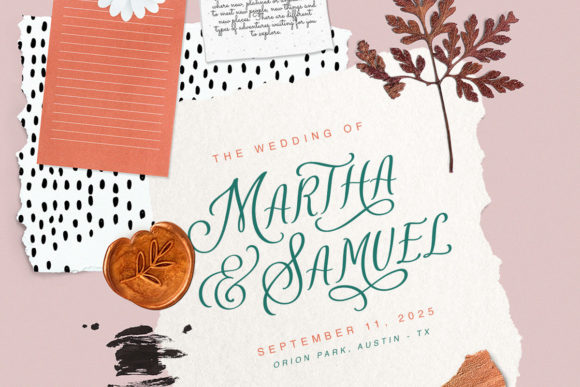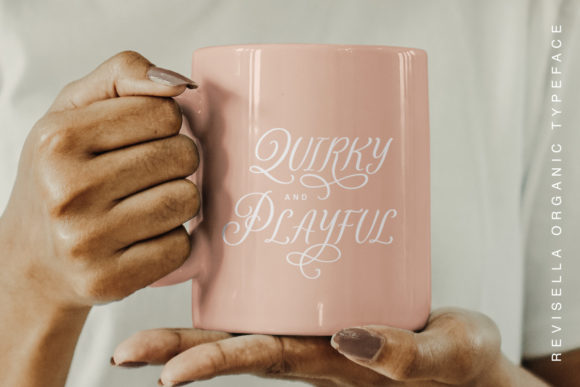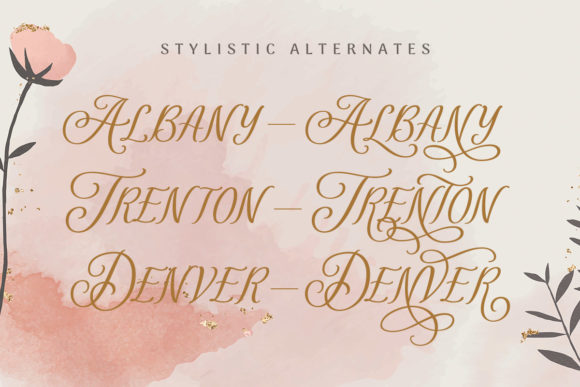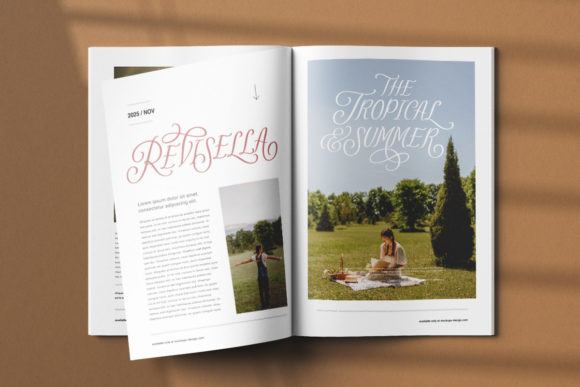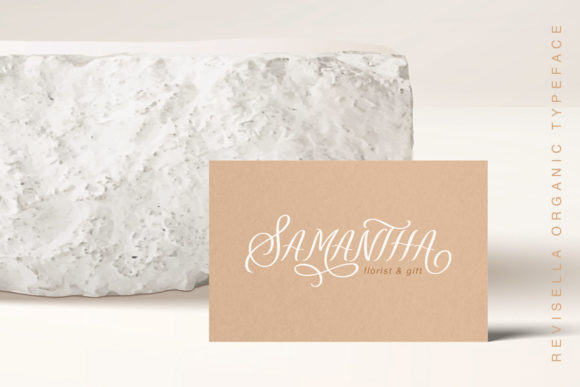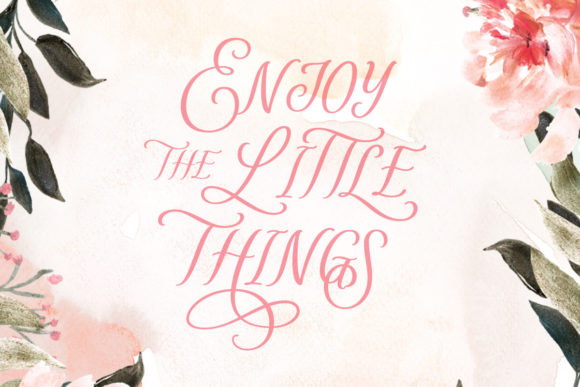
Introduction to Revisella Font
Have you ever been stuck on a creative project, staring at a blank page, and then suddenly, a spark of inspiration hits? For designers, this moment is precious, and the right font can be the key to unlocking it. That’s where the Revisella Font comes in – a beautiful and classy display font that’s sure to elevate your designs to the next level.
What makes the Revisella Font truly unique is its combination of all caps and alternates with swashes. With numerous swashes at your disposal, you can create stunning lettering instantly, giving your designs a touch of sophistication and elegance. Whether you’re working on a logo, invitation, or magazine spread, this font is sure to impress.
Key Features of Revisella Font
- High-quality design for creative projects, ideal for digital art and design
- Comes with a transparent background, allowing for easy customization and integration
- Features a unique and elegant design, making it suitable for a wide range of creative projects
Honest Review: Revisella Font
I recently stumbled upon the Revisella Font and I have to say it’s been a game-changer for my creative projects. This high-quality font is perfect for designers looking to add a unique touch to their designs. With its transparent background and sleek design, it’s a great design resource to have in your collection.
- What works well: ✨ High-quality design, versatile and suitable for various creative projects, transparent background, easy to download and use.
- Limitations: ⚠️ Limited character set, may not be suitable for complex or large-scale designs.
Overall, I’m really impressed with the Revisella Font and I would highly recommend it to any designer looking for a unique and high-quality design resource. It’s a great addition to any design library and has already been a valuable asset in my own creative projects.
Tips and Use Cases